In a world where first impressions are everything, the font you choose for your brand can make all the difference. Fonts have the power to convey a sense of luxury, sophistication, and opulence, making them a key element in establishing a strong brand identity. With Canva’s wide selection of premium fonts, adding a touch of elegance to your design has never been easier. Let’s explore how you can elevate your brand with luxury fonts on Canva.
Choosing the Right Luxury Font for Your Brand
When choosing a luxury font for your brand, it’s important to consider the message you want to convey to your audience. Each font has its own personality and can evoke different emotions, so it’s crucial to select one that aligns with your brand’s image and values. Before making a decision, take the time to research and experiment with various fonts to see which one best represents the essence of your brand.
Consider the readability of the font, as well as its versatility across different platforms and mediums. A font that looks elegant and sophisticated on a website may not translate as well on printed materials. It’s also important to think about how the font will be perceived by your target audience. A font that appeals to a younger demographic may not resonate with an older demographic, so choose a font that will resonate with your specific target market. Remember, consistency is key when it comes to branding, so once you choose a luxury font for your brand, make sure to use it consistently across all your marketing materials and communication channels to create a strong and cohesive brand identity.
Exploring Canva’s Selection of Opulent Fonts
When it comes to adding a touch of luxury to your designs, Canva’s selection of opulent fonts has you covered. These fonts exude elegance and sophistication, making them perfect for creating invitations, branding materials, or social media graphics that demand attention. With a wide range of opulent fonts to choose from, you can easily find the perfect style to elevate your design to the next level.
From classic serif fonts to ornate script styles, Canva offers a diverse array of opulent fonts that cater to every design need. Whether you’re going for a timeless look or a more modern feel, these fonts can help you achieve the desired aesthetic. With the ability to customize the size, color, and spacing of these fonts, you can truly make them your own and create stunning designs that stand out from the crowd. Start today and add a touch of luxury to your next project.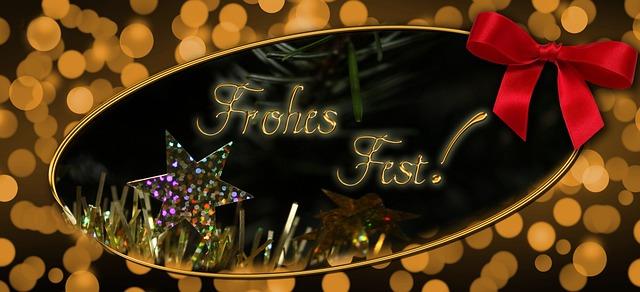
Tips for Incorporating Luxury Fonts Into Your Design
When incorporating luxury fonts into your design, it’s important to consider the overall aesthetic and message you want to convey. Choose fonts that exude sophistication and elegance to create a high-end and luxurious feel. Opt for serif fonts for a classic look or modern sans-serif fonts for a sleek and contemporary vibe. Experiment with different font pairings to find the perfect combination that enhances your design.
To make your luxury fonts stand out, consider using them sparingly and strategically. Reserve them for headlines, logos, or important calls to action to draw attention and make a statement. Pair luxury fonts with simpler, more neutral typefaces to create contrast and balance in your design. Remember that less is often more when it comes to luxury design – focus on quality over quantity and let your chosen fonts speak for themselves.
Creating Consistency Across Brand Elements with Luxury Fonts
When it comes to establishing a strong and cohesive brand identity, consistency is key. One powerful way to achieve this is through the use of luxury fonts. Selecting the right font can instantly elevate the perception of your brand and help create a sense of luxury and sophistication.
By using consistent luxury fonts across all brand elements, from your logo to marketing materials to website design, you can create a seamless and harmonious brand experience for your customers. This helps to build brand recognition and trust, as well as convey a sense of professionalism and attention to detail. When choosing luxury fonts for your brand, consider factors such as readability, uniqueness, and how well they align with your brand’s personality and values.
Utilizing Colors and Textures to Enhance Your Luxury Font
When it comes to enhancing your luxury font, the use of colors and textures can truly make a difference. By incorporating rich and sophisticated hues into your design, you can elevate the overall aesthetic of your font to exude luxury and elegance. Experiment with deep tones such as burgundy, navy, and emerald green to add a touch of opulence to your typography.
Q: Can luxury fonts be used across different mediums, such as social media and print materials?
A: Yes, luxury fonts can be used across various mediums to maintain brand consistency. Whether it’s for social media graphics, print materials, or website design, luxury fonts can add a touch of sophistication to any brand’s visual identity.
Future Outlook
In conclusion, using luxury fonts on Canva is a simple way to elevate your brand with a touch of sophistication and opulence.